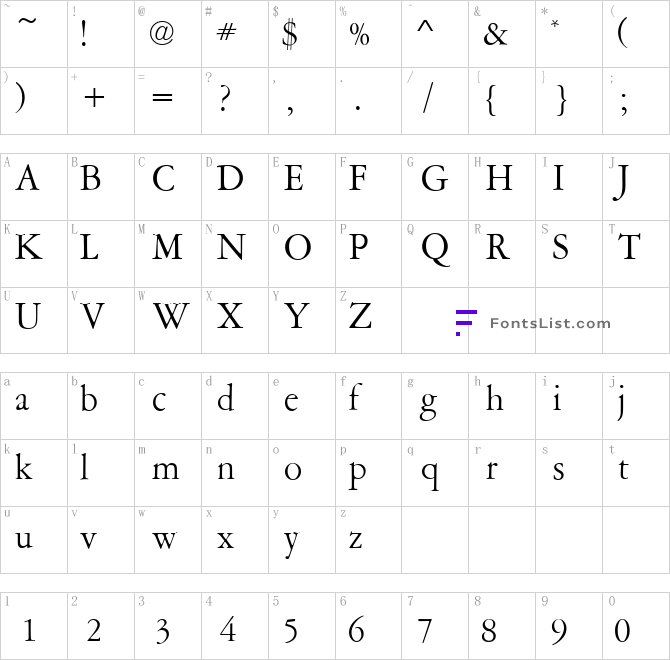
- Font Name:Amsterdamer-Garamont
Amsterdamer-Garamont-Regular.ttf is a very beautiful artistic font, Amsterdamer-Garamont-Regular.ttf is widely used in the design and printing of various books and pictures,Amsterdamer-Garamont-Regular.ttf has a strong visual impact,Amsterdamer-Garamont-Regular.ttf is a commonly used font in newspapers, magazines and books, and is used in posters, e-commerce Poster design, store design, logo design, font design and other fields.Amsterdamer-Garamont-Regular.